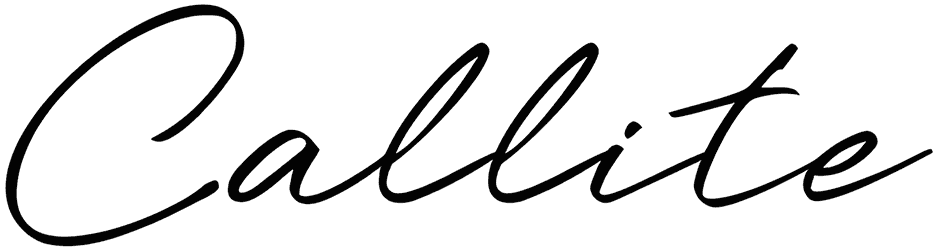
Callite Font
The good thing about Callite is that it won’t let any of your designs lack a cool, feminine touch. That’s why you can already picture it in your spring designs, travel agency announcements, restaurant menus, and other fancy projects. Isn’t that right?
You’d better not miss this invitation font and its lovely tone in your designs before throwing all kinds of parties, from weddings to anniversaries, and birthdays. After all, it’s a gorgeous cursive font, capable of great things.